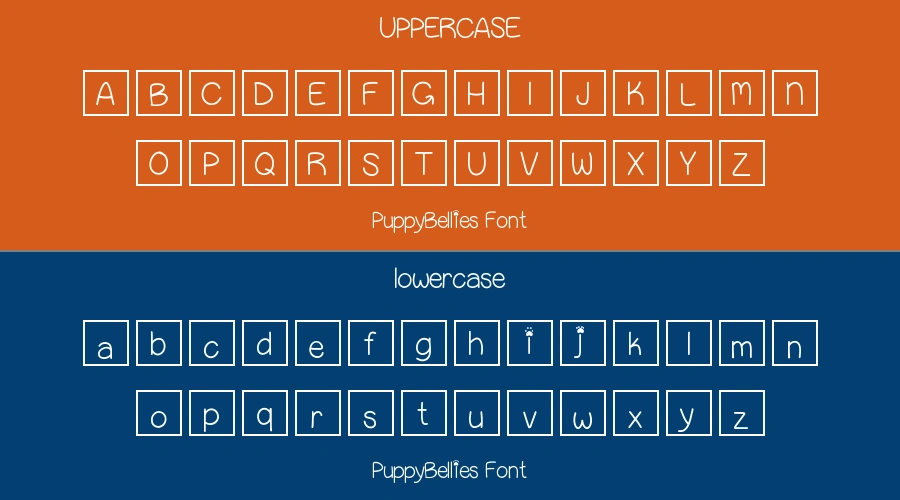
About PuppyBellies Font
PuppyBellies Font embodies typographic excellence through its masterful combination of teardrop terminals and memorable presence. Created for brand identities, this typeface delivers exceptional consistency and practical utility across all applications. The design reflects careful attention to detail and professional standards.
Advanced capabilities include distinctive unique personality and versatile stylistic sets, giving designers creative control. When used in colophons, PuppyBellies Font exhibits remarkable compatibility. The harmonious balance between loop structure and professional recognition sets this typeface apart.
PuppyBellies Font |